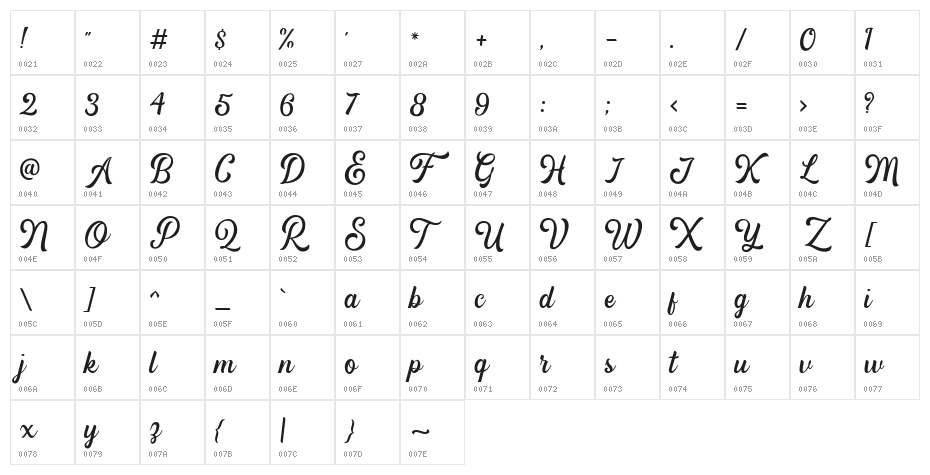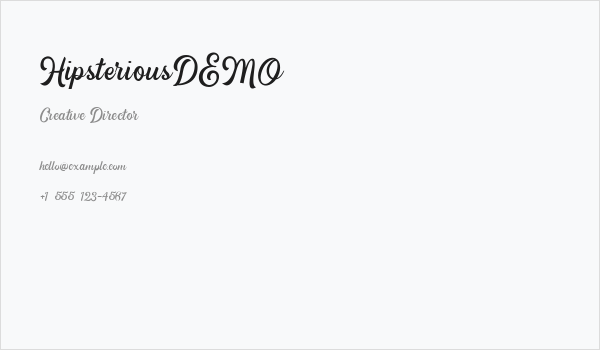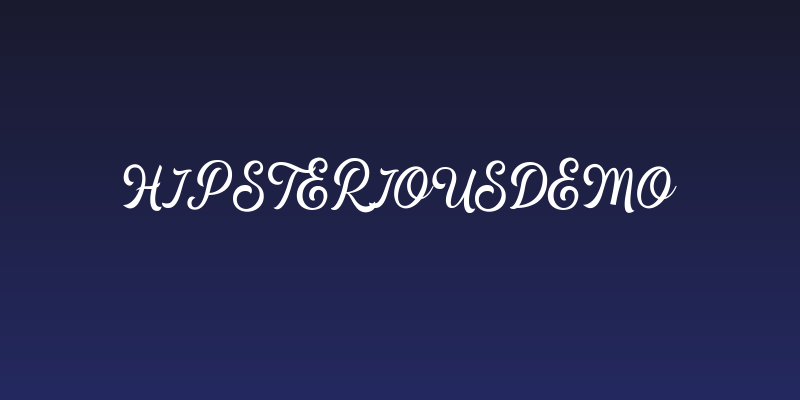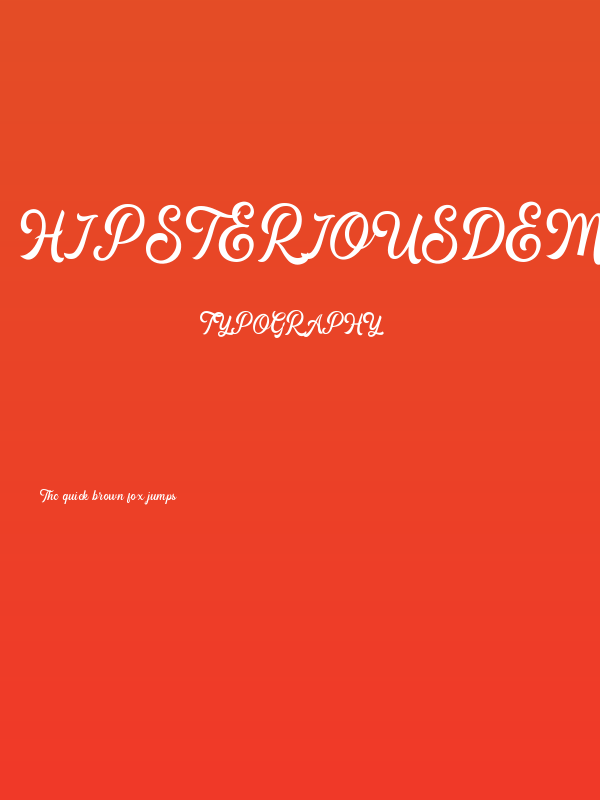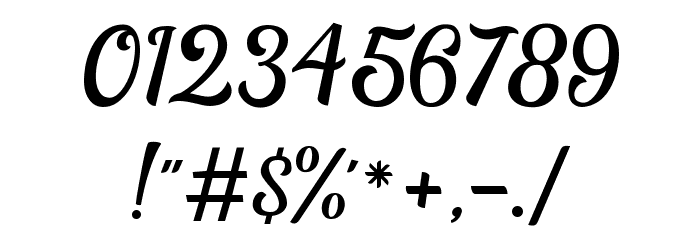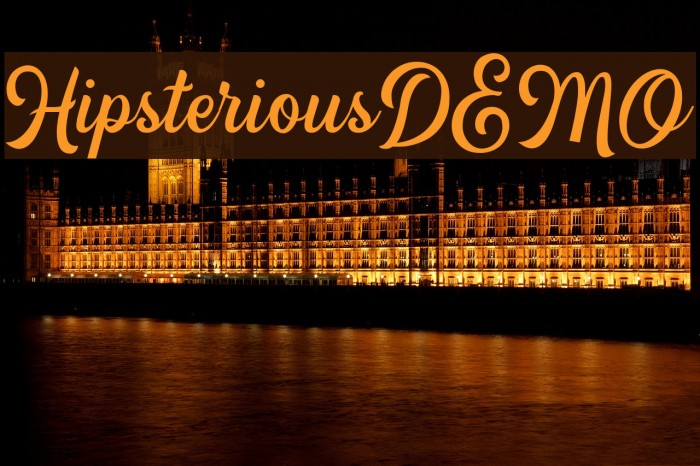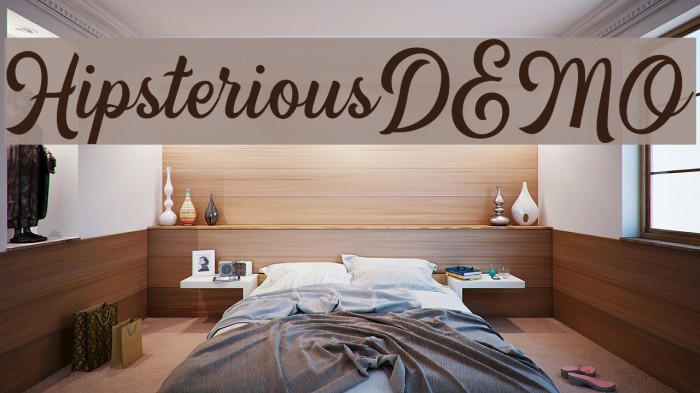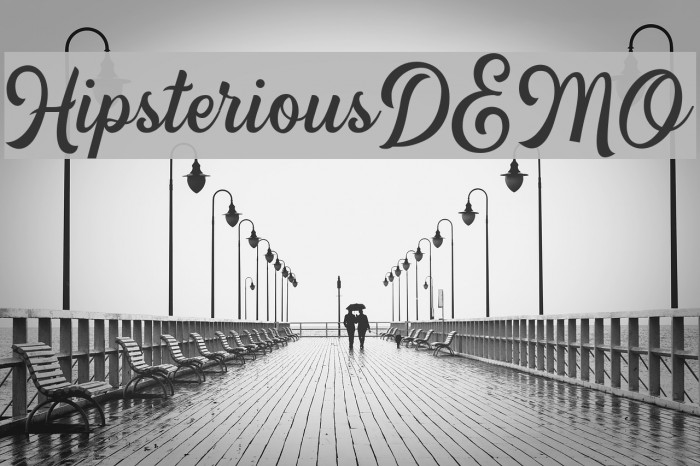
HipsteriousDEMO Font
HipsteriousDEMO Description
This font features a stylish, cursive design with a flowing script that exudes elegance and sophistication. The uppercase letters are bold and prominent, with smooth curves and a slight slant that adds a dynamic feel. The lowercase letters maintain the same fluidity, offering a harmonious blend between each character. Numbers are clear and legible, maintaining the same cursive style, which ensures consistency throughout. Special characters are designed with the same attention to detail, making them suitable for various creative applications. The overall appearance is both modern and classic, making it versatile for a range of design projects.
| Overall Style | Modern, Classic |
| Proposed Projects | Ideal for wedding invitations, branding, logo design, and elegant stationery. |